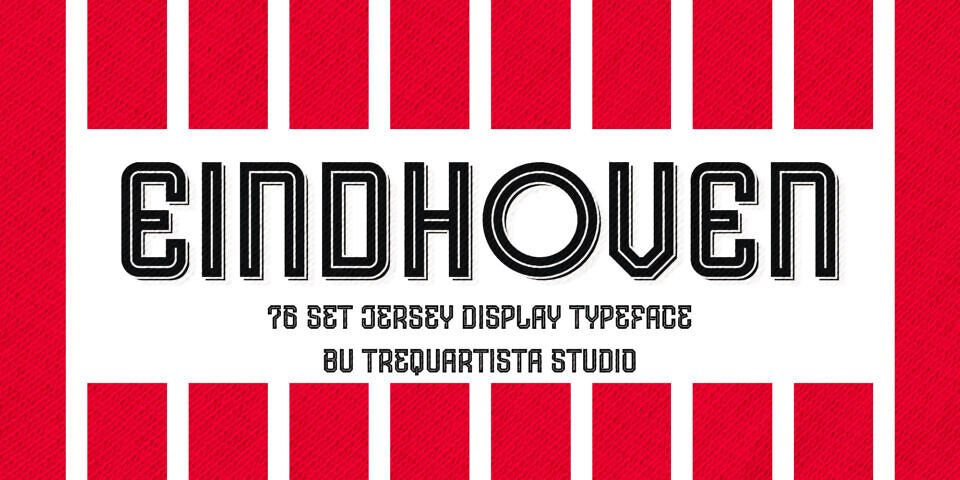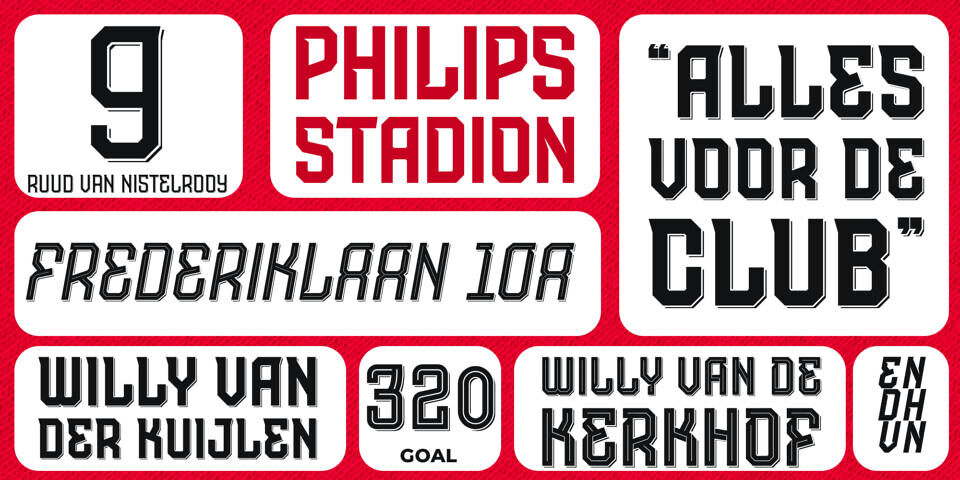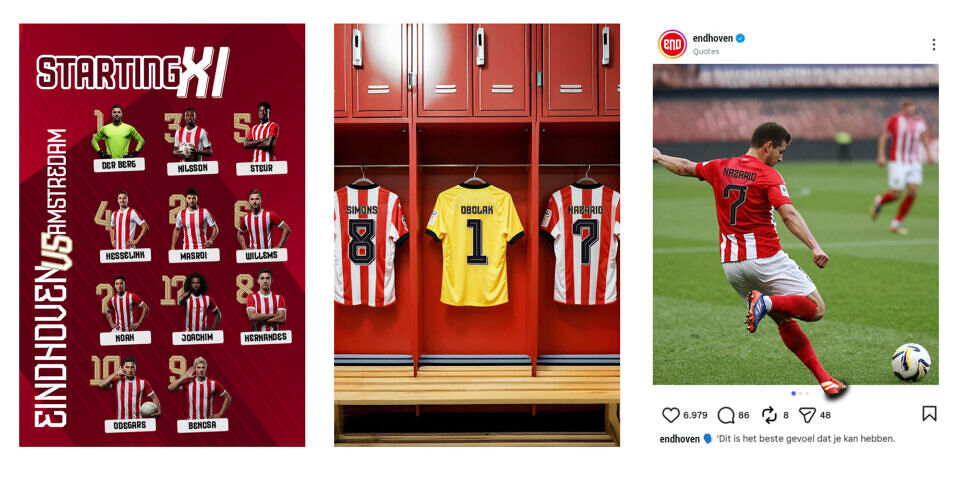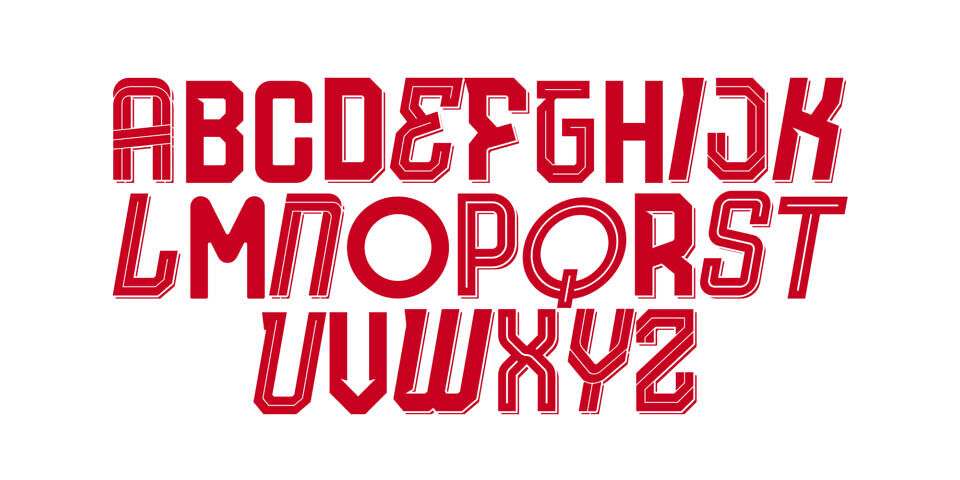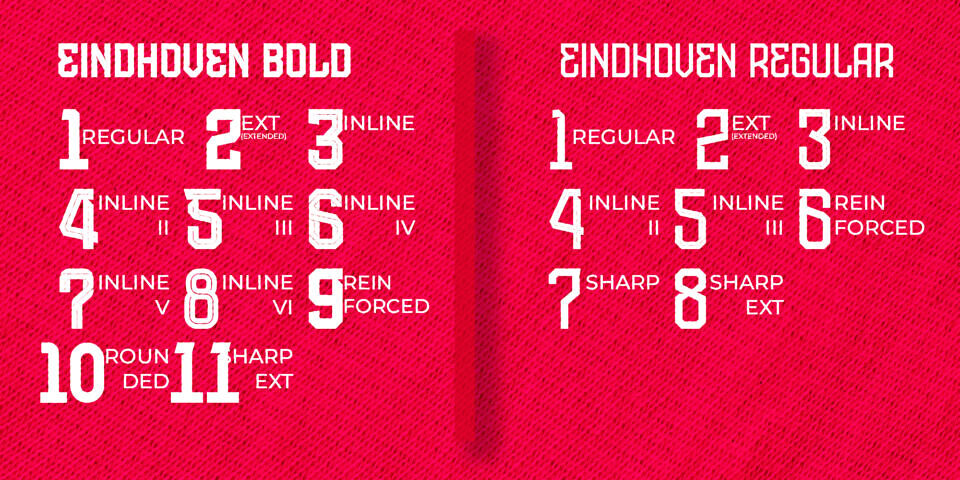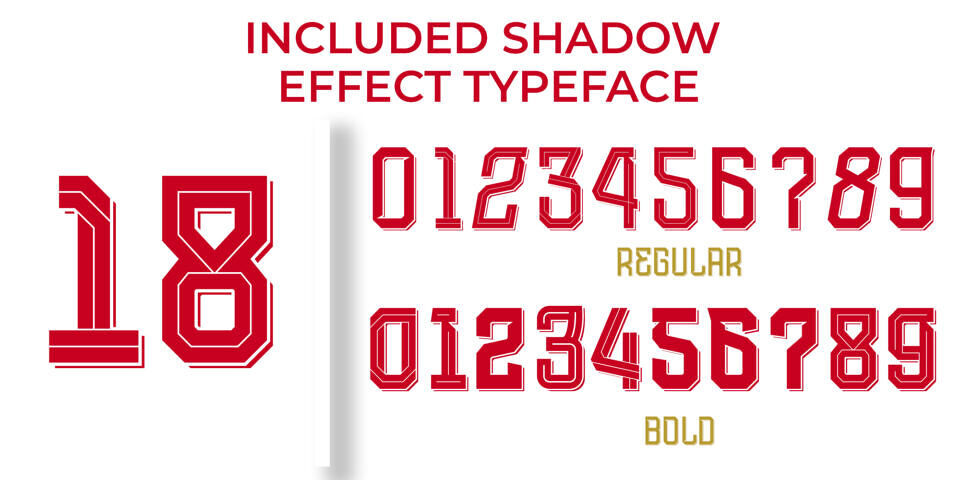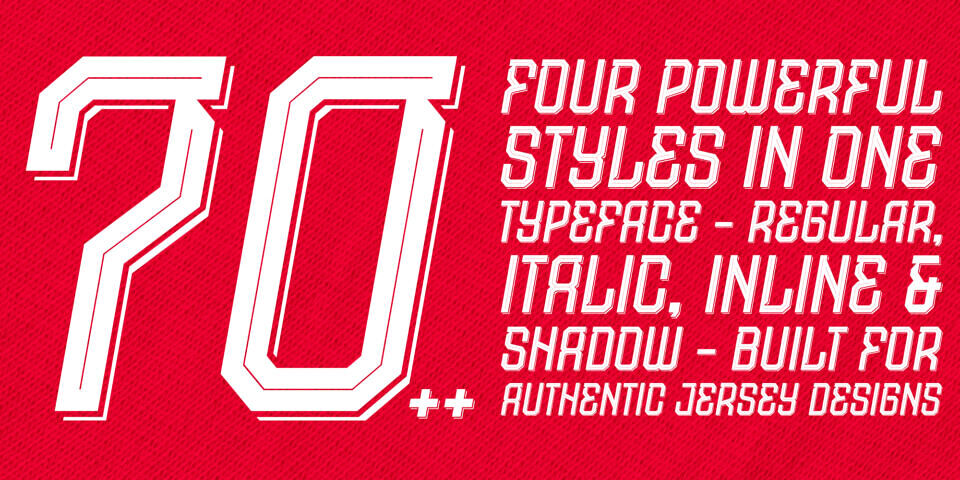
Eindhoven is a bold jersey-style display typeface inspired by European football culture and the strong identity of the city of Eindhoven—where classic heritage meets modern precision.
Designed to capture the power, confidence, and energy of match-day visuals, this typeface brings an authentic stadium feel to your designs. The Bold style delivers dominance and authority, while the Regular style maintains balance and clarity. The Italic, Inline, and Shadow variations provide dynamic visual options for creating authentic, professional jersey designs.
The font family includes 72 fonts across 2 main styles: Regular and Bold, offering extensive flexibility for sports-focused typography.